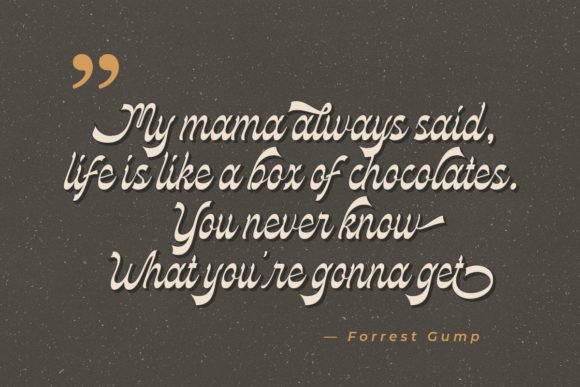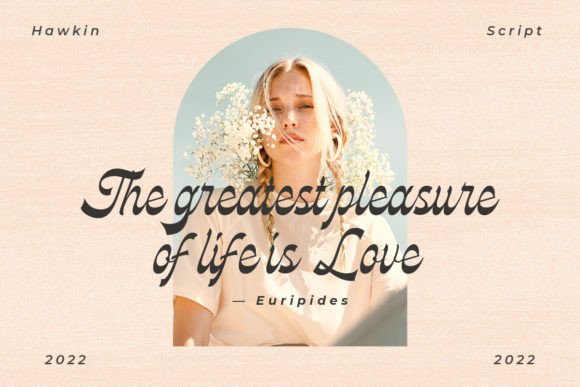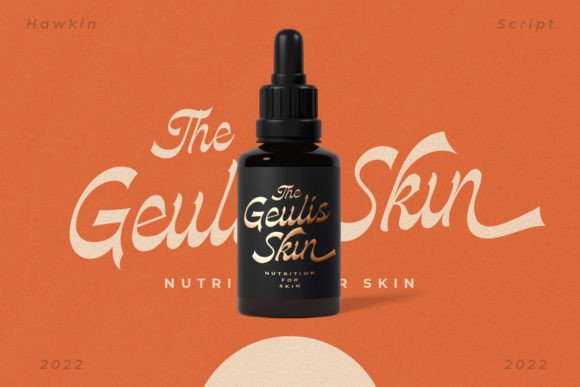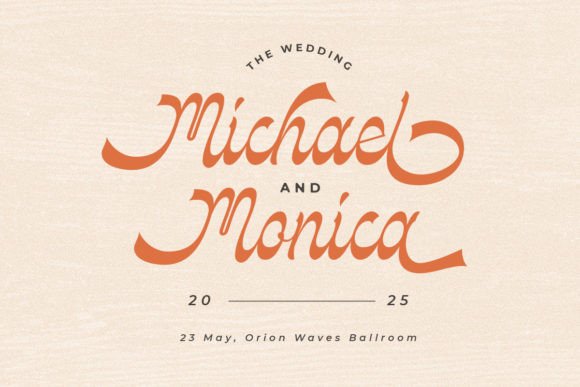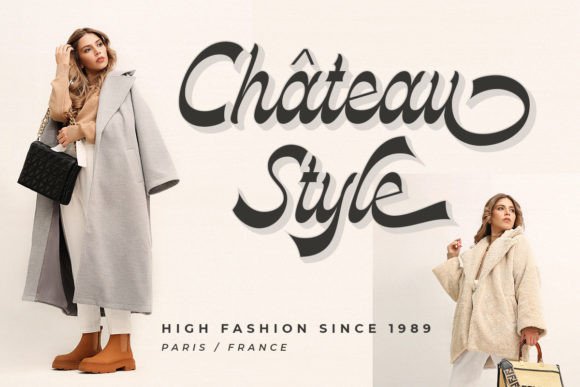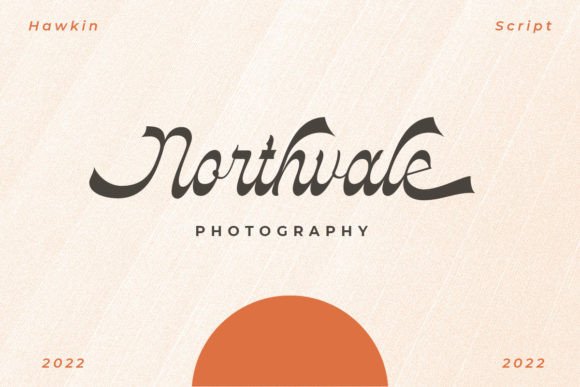
Introducing Hawkin Font: A Unique Script Font with Reverse Contrast
In the world of typography, a new font has emerged that’s making waves with its distinctive style. Say hello to Hawkin, a script font that boasts a unique reverse contrast design. This unusual feature sets it apart from other fonts, making it a one-of-a-kind addition to any design project. In this article, we’ll dive into the world of Hawkin font, exploring its features, uses, and benefits for designers and crafters.
What is Hawkin Font?
Hawkin is a script font that features a reverse contrast design, where the thick and thin strokes are reversed. This creates a visually striking effect that’s both elegant and eye-catching. The font is perfect for designs that require a touch of sophistication and uniqueness. Whether you’re working on a logo, invitation, or packaging, Hawkin font is sure to make your project stand out.
Key Features of Hawkin Font
- Unique Reverse Contrast Design: Hawkin’s reverse contrast design makes it a standout font that’s unlike any other.
- Script Style: The font features a beautiful script style that’s perfect for designs that require a touch of elegance.
- Versatile: Hawkin font can be used for a wide range of design projects, from logos and invitations to packaging and advertising.
Uses of Hawkin Font
Hawkin font is perfect for a variety of design projects, including:
- Logos: Create a unique and memorable logo with Hawkin font that’s sure to make your brand stand out.
- Invitations: Add a touch of elegance to your invitations with Hawkin font, perfect for weddings, parties, and other special events.
- Labels: Use Hawkin font to create eye-catching labels for products, gifts, or other items.
- Magazines and Books: Add a touch of sophistication to your magazine or book with Hawkin font, perfect for headings, titles, and other design elements.
- Greeting and Wedding Cards: Create beautiful greeting and wedding cards with Hawkin font that’s sure to impress.
- Packaging: Use Hawkin font to create eye-catching packaging that’s sure to stand out on store shelves.
- Fashion and Make-up: Add a touch of glamour to your fashion or make-up designs with Hawkin font.
- Stationery: Create beautiful stationery with Hawkin font, perfect for letters, notes, and other written communication.
- Novels: Use Hawkin font to create a unique and eye-catching novel that’s sure to stand out.
- Advertising: Add a touch of sophistication to your advertising with Hawkin font, perfect for print, digital, or outdoor ads.
Benefits of Using Hawkin Font
There are many benefits to using Hawkin font in your design projects. Here are just a few:
- Unique and Eye-Catching: Hawkin font is sure to grab attention with its unique reverse contrast design.
- Versatile: The font can be used for a wide range of design projects, from logos and invitations to packaging and advertising.
- Elegant and Sophisticated: Hawkin font adds a touch of elegance and sophistication to any design project.
- Easy to Read: Despite its unique design, Hawkin font is easy to read and understand, making it perfect for body text and other written content.
In conclusion, Hawkin font is a unique and versatile script font that’s perfect for designers and crafters looking to add a touch of elegance and sophistication to their design projects. With its reverse contrast design, Hawkin font is sure to grab attention and make your project stand out. Whether you’re working on a logo, invitation, packaging, or advertising, Hawkin font is a great choice. So why not give it a try and see the difference it can make in your design projects?